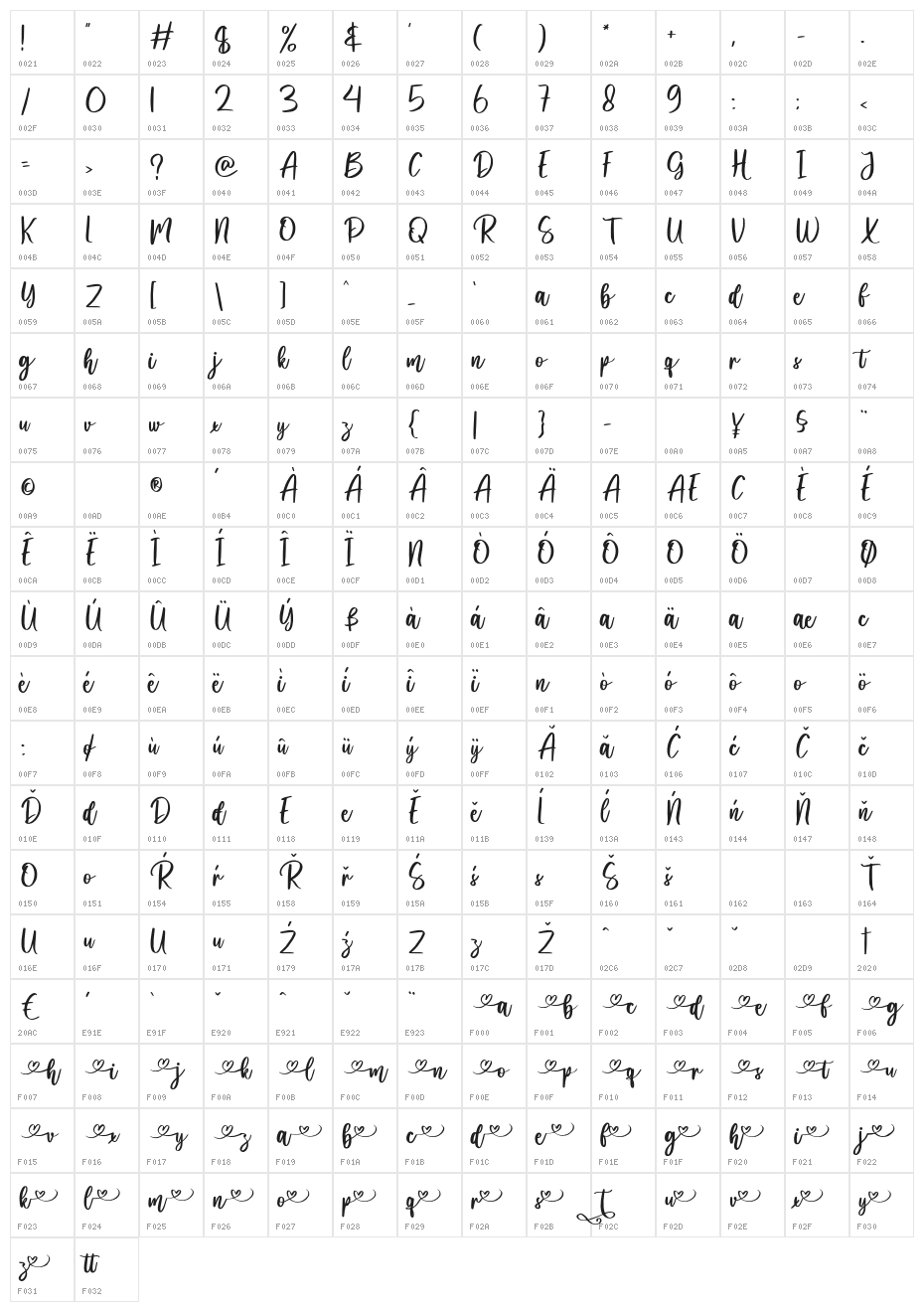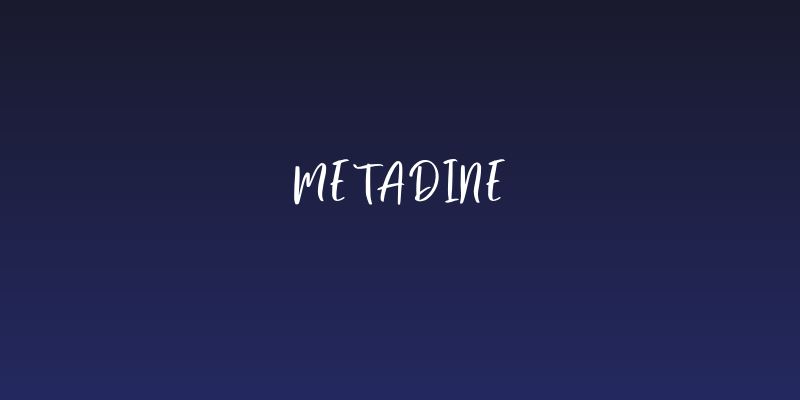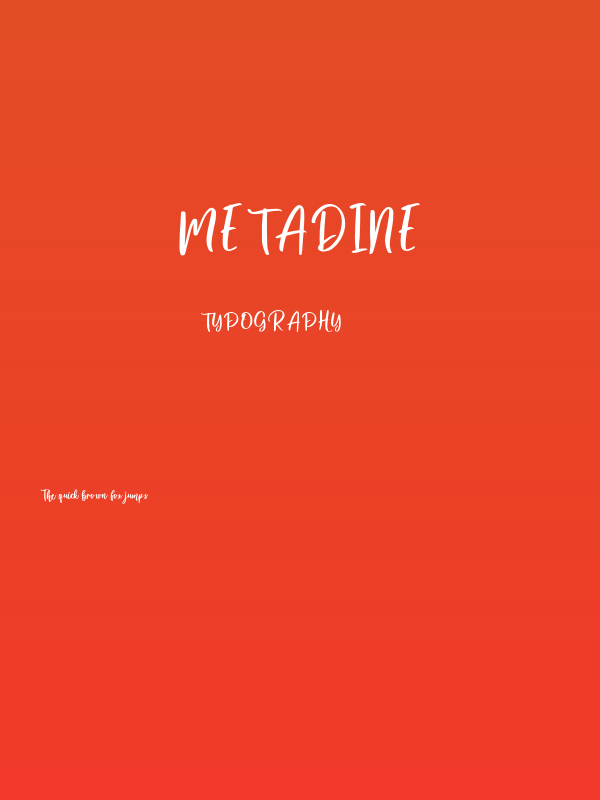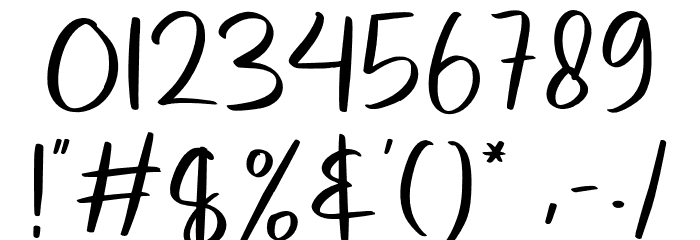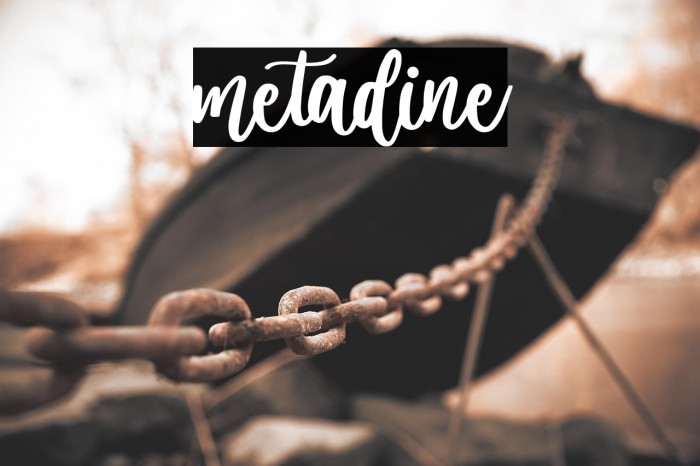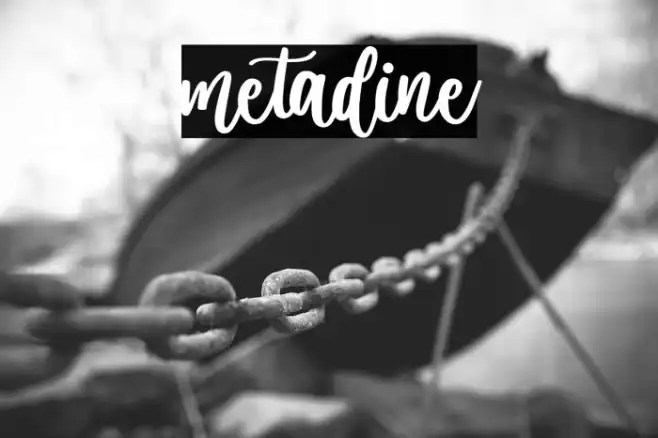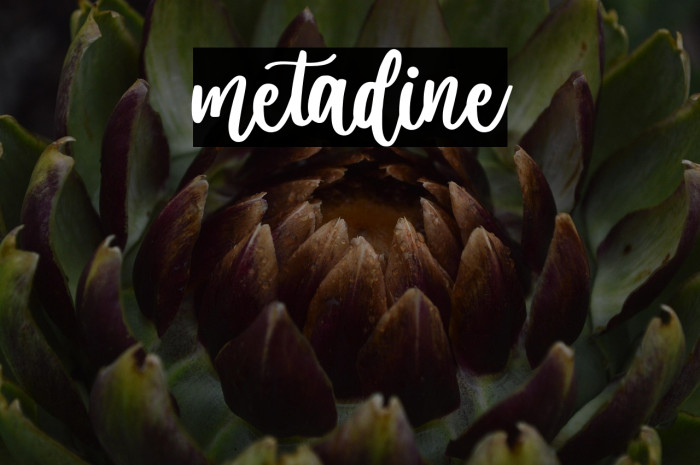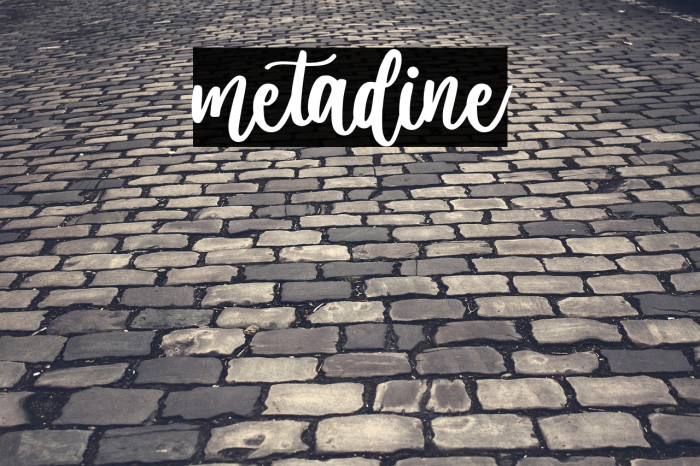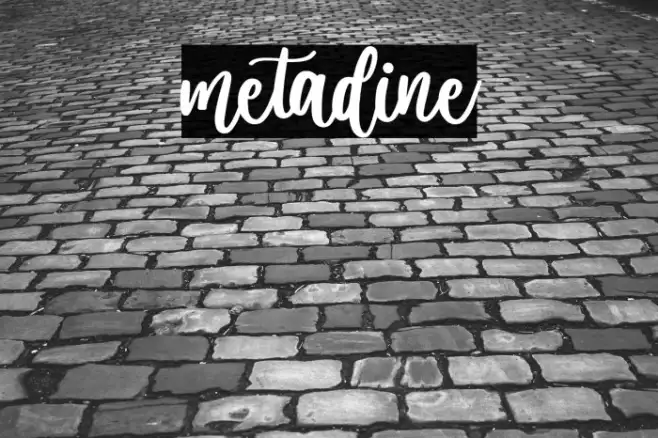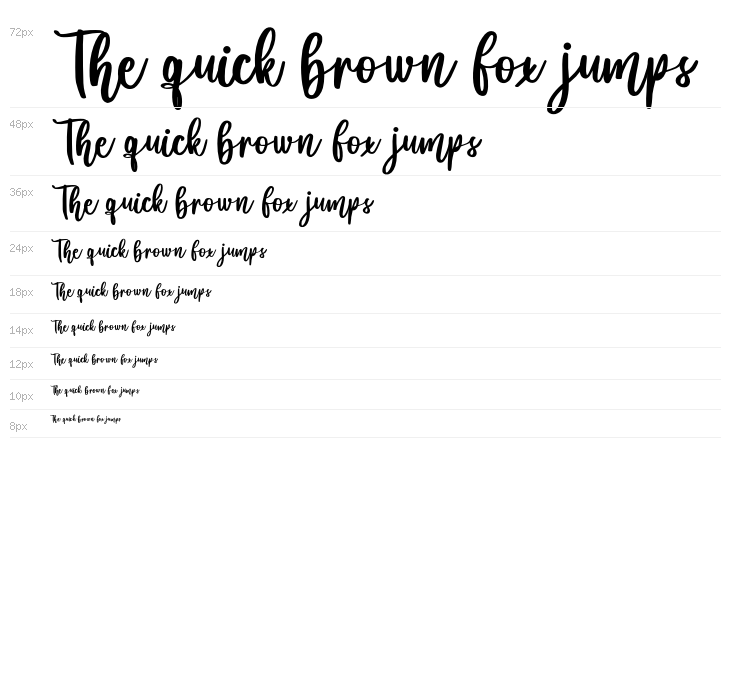
metadine Font
metadine Description
This font features a lively and expressive script style, characterized by its flowing and connected letterforms. The uppercase letters are bold and slightly slanted, giving a dynamic and energetic feel. The lowercase letters maintain a consistent flow, with some letters featuring loops and flourishes that add a touch of elegance. The numerals are clear and legible, with a slight slant that complements the overall style. Special characters are designed with the same attention to detail, ensuring they blend seamlessly with the rest of the font. This font is perfect for projects that require a personal and artistic touch.